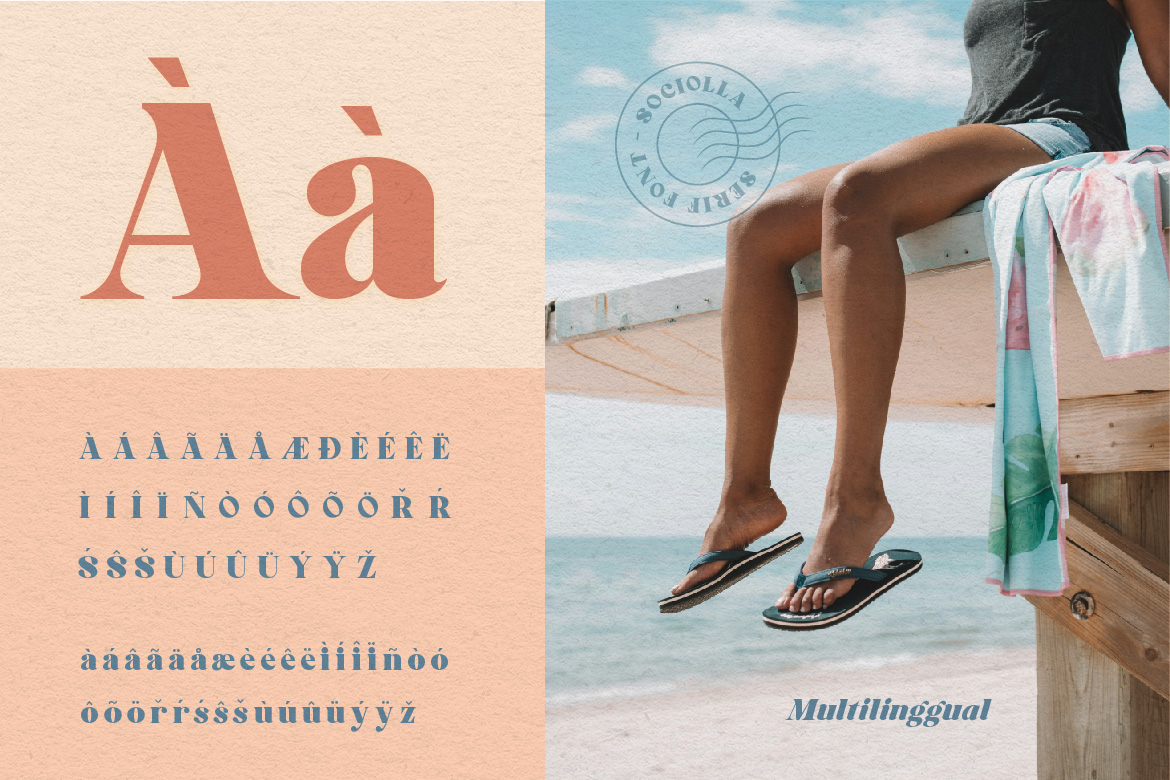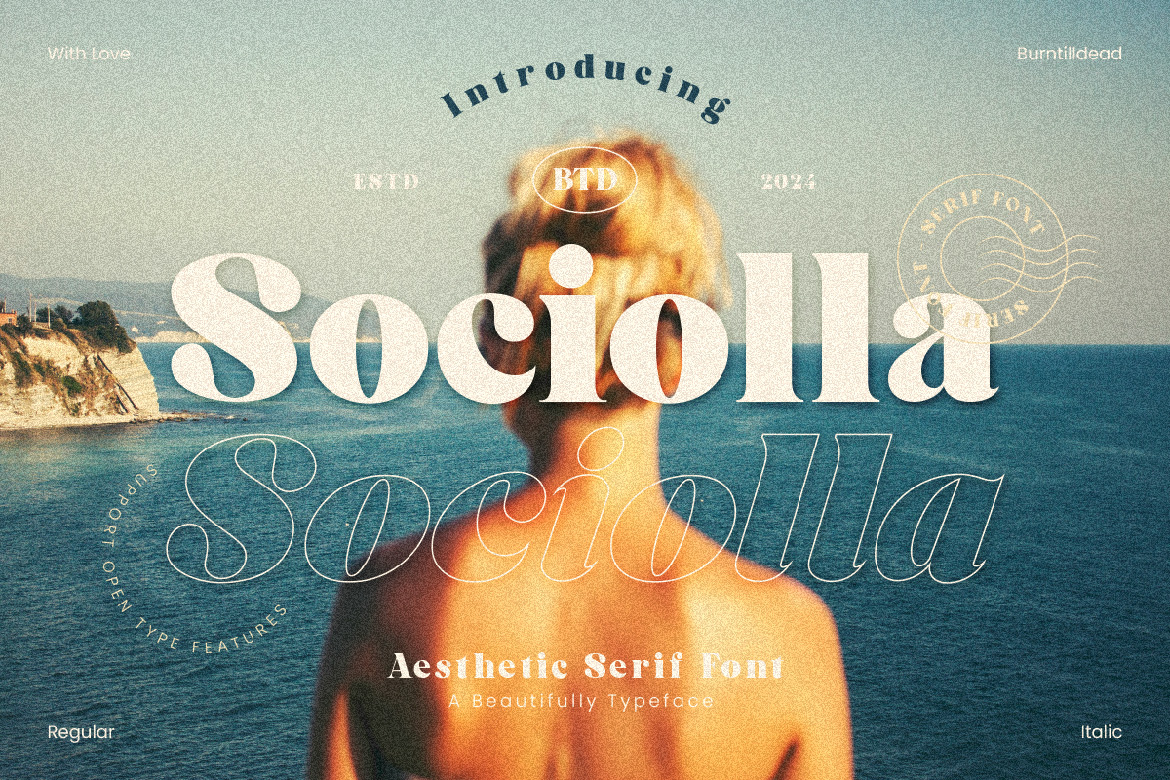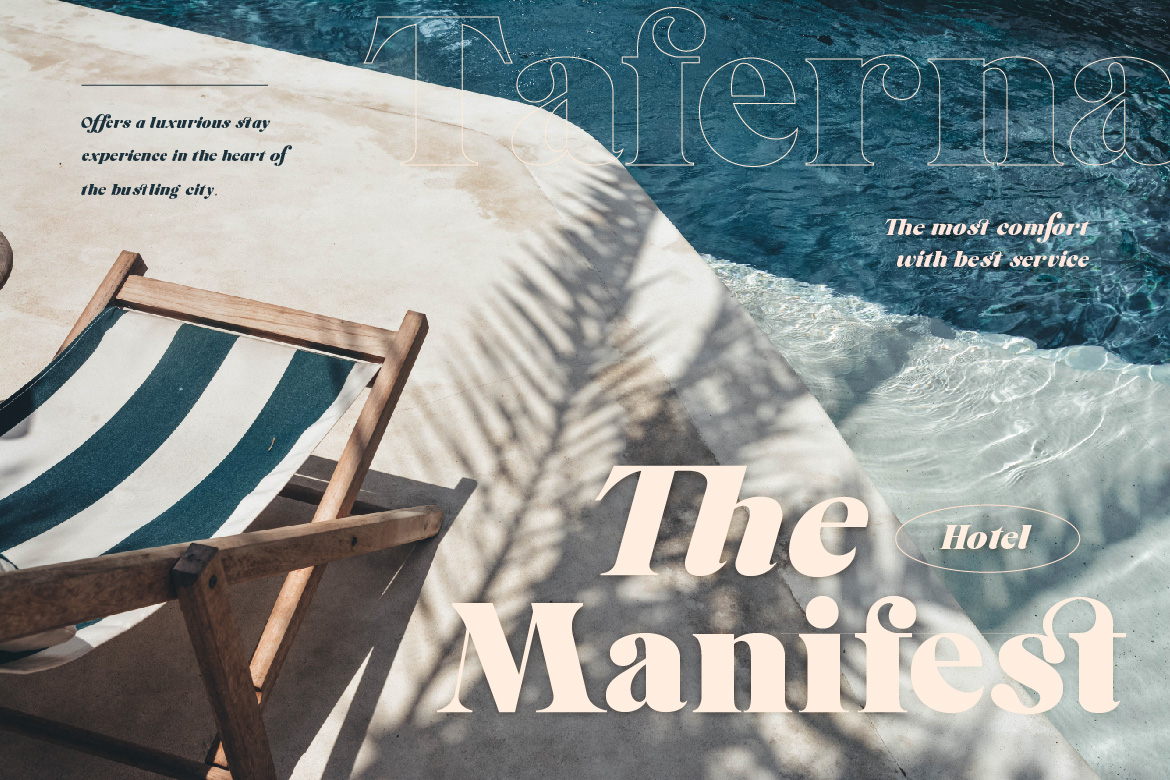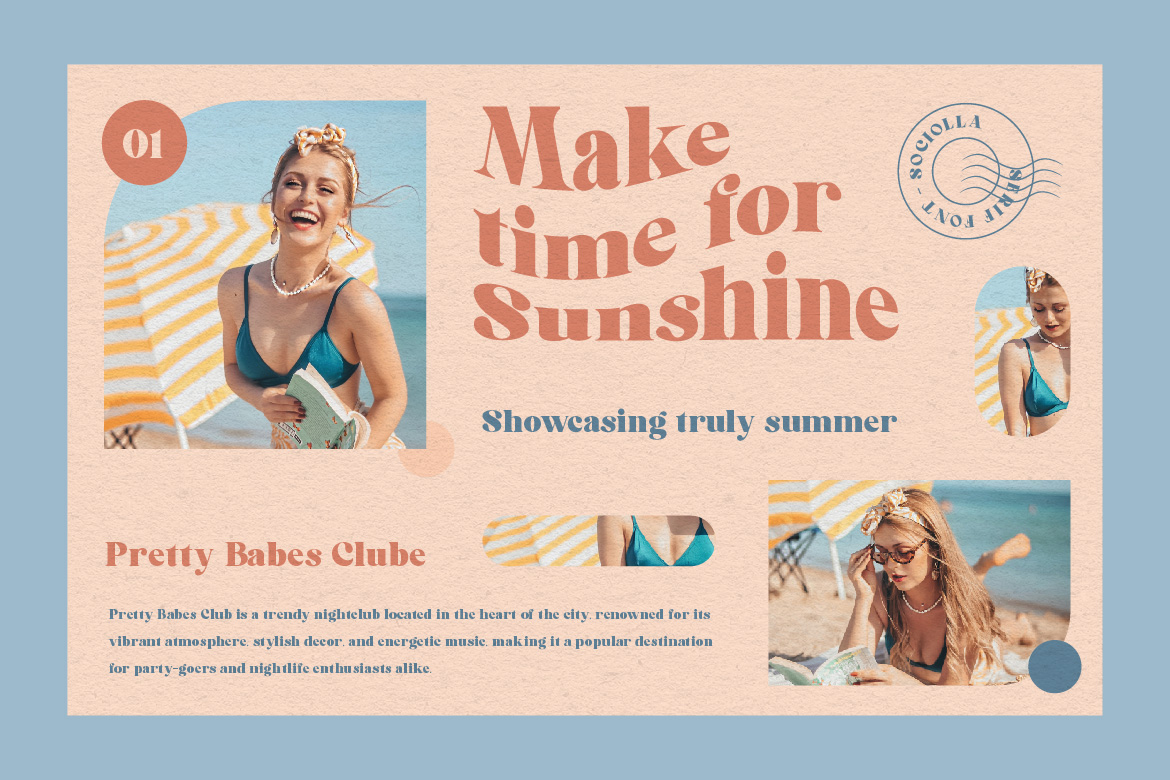
- Classic - Elegant
- Sociolla
Regular
Italic
Say hello to Sociolla, an aesthetic serif font. Between the thick and thin of this font, make this font looks fresh, clean, simple but still attractive, elegance and aesthetic. This font perfectly choice for branding, packaging product, tag product, magazine, marketing materials and any other design project. Sociolla is a serif font that every designer need to have!